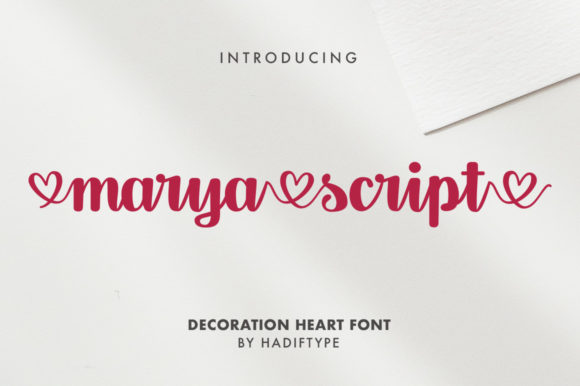
Marya Script: Adding a Sweet Dance to Your Designs
There's a particular kind of magic in a well-chosen script font. It doesn't just convey words; it communicates a feeling—a warmth, a personality, a human touch that a standard sans serif font or serif font often can't achieve on its own. When you find a premium font that strikes the right balance between elegance and approachability, it becomes an invaluable design asset. That's precisely the space Marya Script occupies. This romantic and sweet calligraphy typeface is designed with characters that seem to dance lightly along the baseline, injecting a sense of playful luxury into any project it graces.
As a designer or brand strategist, you know that the personality of your typography sets the tone before a single word is read. Marya Script isn't a heavy, formal script. Its charm lies in its fluid, connected letterforms and subtle variations that mimic natural handwriting. The "dancing" quality comes from these slight irregularities and the way the strokes flow into one another, creating a rhythm that feels organic and joyful. This makes it an exceptional choice for projects where you want to convey warmth, creativity, and a touch of handmade elegance. Think of it as a creative font that adds a spark without overwhelming the design—it’s confident enough to be a star but knows how to play well with others.
Where Marya Script Truly Shines
Understanding a font's ideal context is key to using it effectively. Marya Script excels in applications where emotion, celebration, and personal connection are paramount. Its visual style makes it a natural fit for logo design and brand identity in industries like wedding planning, boutique bakeries, floral studios, artisanal crafts, and lifestyle blogging. The sweet, approachable aesthetic builds an immediate emotional rapport with the audience, suggesting care, quality, and a personal touch.
Beyond logos, consider its power in packaging design. Imagine it on the label of a small-batch jam, a candle, or a gourmet chocolate box. It instantly communicates "crafted with love." In editorial design, it can elevate the masthead of a magazine or the chapter titles in a recipe book. For digital use, it brings life to social media graphics, Instagram quotes, and promotional banners, especially for sales, announcements, or heartfelt messages. It's a fantastic tool for content creators and marketers looking to make their visual content more engaging and shareable. The key is to deploy it where its personality enhances the message, rather than competing with it in a dense block of technical text.
Making the Most of Your Design Investment
Choosing any commercial font is a practical decision. With Marya Script, part of its value lies in its versatility as a display font. It’s not meant for body copy—its intricate details would become a jumble at small sizes. Instead, use it for headlines, pull quotes, logos, and short, impactful phrases where its character can be fully appreciated. One of its greatest strengths is its PUA encoding, which means you have easy access to a full suite of alternate characters and ligatures. This is crucial for achieving that authentic, custom look. Swapping out a standard 'b' for an alternate 'b' or connecting tricky letter pairs with a unique ligature can transform a generic headline into something that feels truly bespoke.
When integrating Marya Script into your modern typography toolkit, thoughtful font pairing is essential. Its sweet, flowing nature pairs beautifully with clean, neutral typefaces that provide structure and readability. A classic sans serif font like Montserrat or a simple serif font like Lora can create a stunning visual hierarchy, allowing Marya Script to capture attention while the supporting font delivers the detailed information. Always test your pairings in context—see how they look on a mockup of your website header or business card. Consider the spacing (kerning) as well; script fonts often require manual adjustment to ensure letters connect seamlessly and maintain their legibility.